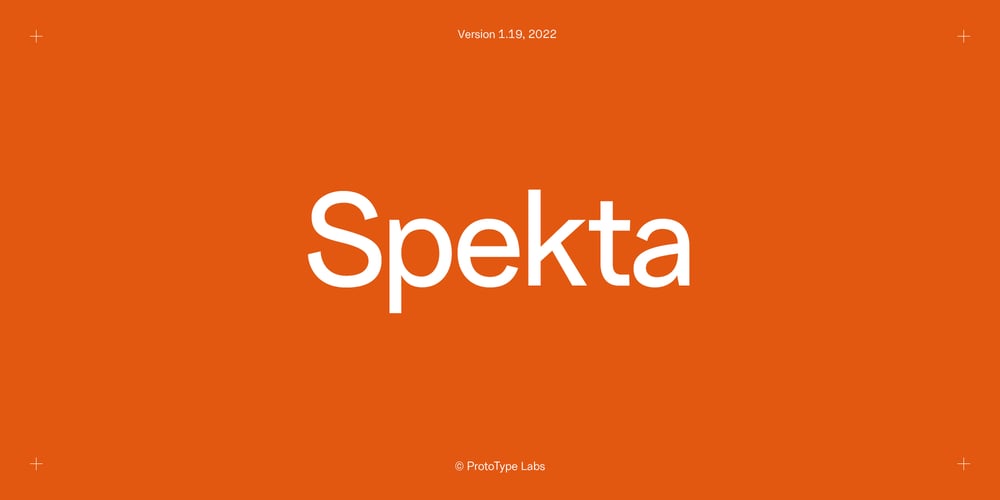
PTL Spekta Font Family was designed by Connor Lyon and published by ProtoType. PTL Spekta contains 16 styles and family package options. Spekta is an unorthodox Neo-Grotesk typeface devoted to versatility and beauty.Originally designed as an all-caps display typeface influenced by Bauhaus and early grotesque forms, Spekta switched priorities and evolved into a well-equipped 8-weight workhorse boasting 667 characters and italics to boot.Spekta’s focus on condensed forms and a greater x-height and cap height difference compared to typical Grotesque types allows for increased legibility at smaller sizes while utilising less horizontal space. Despite this, Spekta respects its display-type roots with elegant forms influenced by a mix of early and modern Grotesque typefaces and countless trial-and-error. Additionally, two sets of diacritics (marks such as acutes, graves, circumflexes, and so on) have been designed to further improve readability and reading flow, an atypical feature for most typefaces.Spekta is devoted to versatility, handing control to the designer with 8 stylistic sets (that only affect a single character and not a group of them), 4 number sets, true superscript, subscript, and scientific subscript characters (unlike what design softwares generate), ordinals, alternative and full-width characters, and much more.